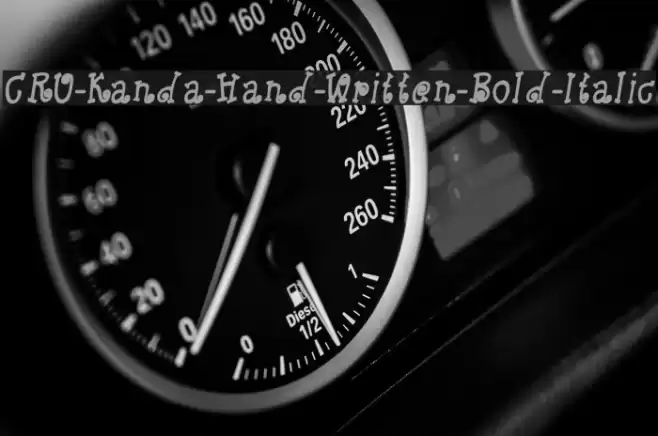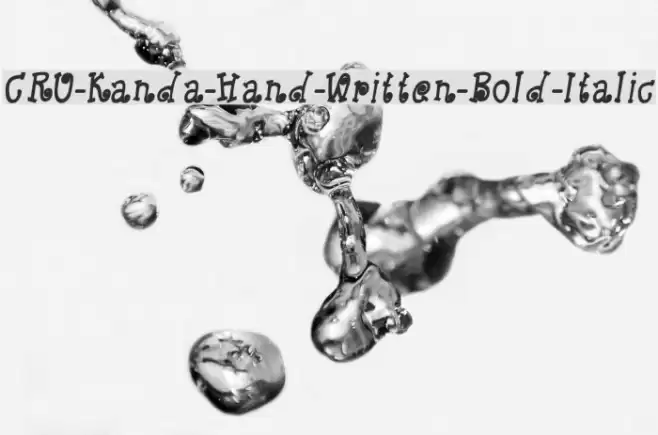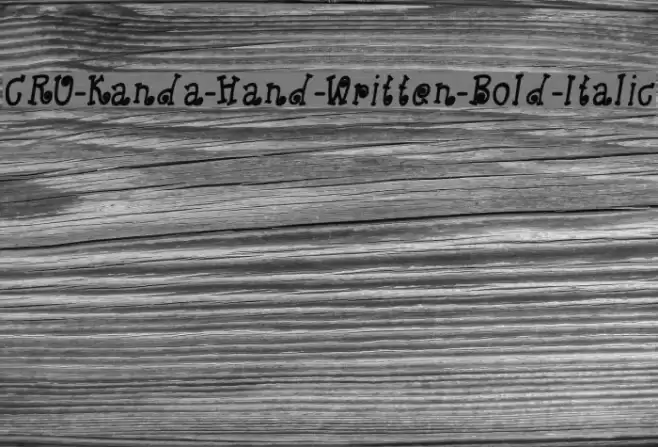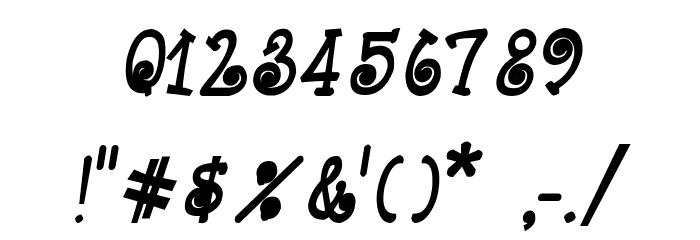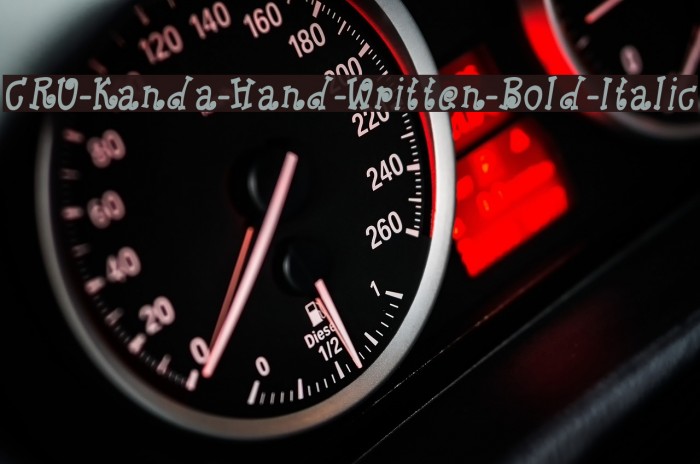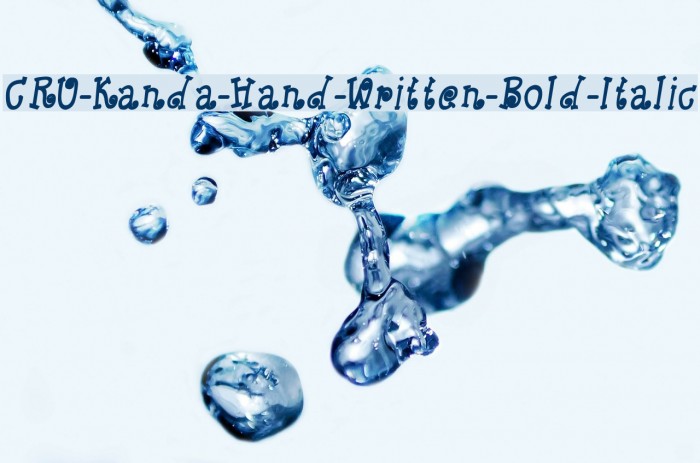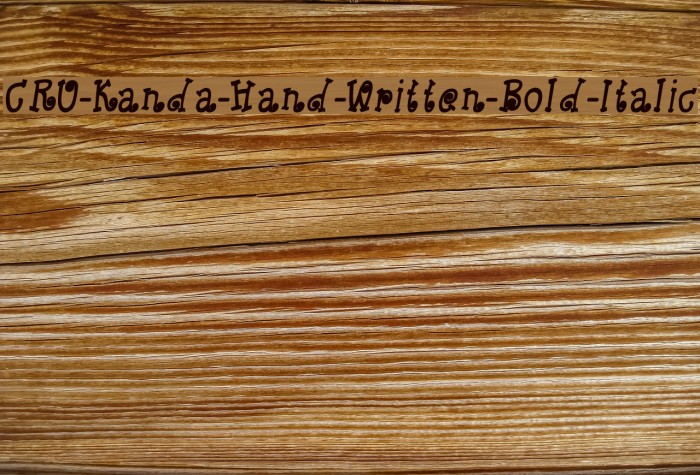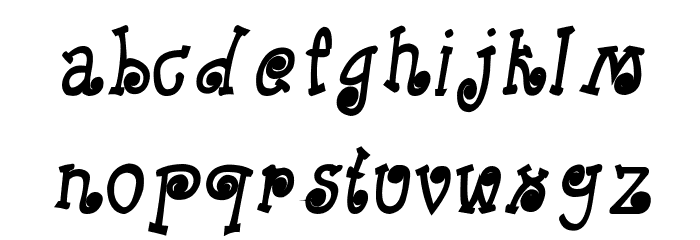
CRU-Kanda-Hand-Written-Bold-Italic Font
CRU-Kanda-Hand-Written-Bold-Italic Description
This font features a bold and playful handwritten style with a distinct italic slant. Each character is uniquely crafted with whimsical curves and loops, giving it a lively and dynamic appearance. The uppercase letters are particularly bold, with exaggerated serifs and strokes that add to the font's decorative nature. Lowercase letters maintain the same playful style, ensuring consistency throughout the text. Numbers and special characters are equally stylized, making this font suitable for creative and informal projects. The overall design is eye-catching and full of personality, perfect for capturing attention.
A bold, playful handwritten font with an italic slant and decorative style from Uncategorized fonts.
- Proposed Projects: Ideal for greeting cards, children's book covers, playful branding, and creative posters.